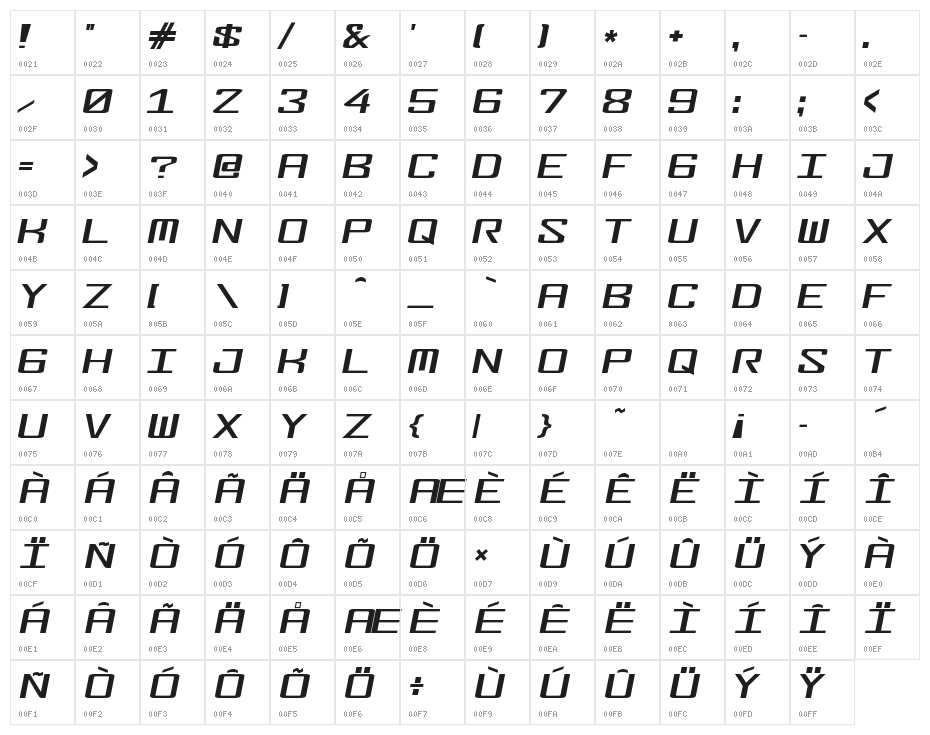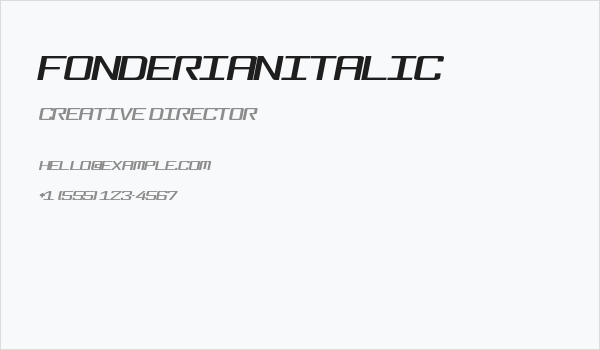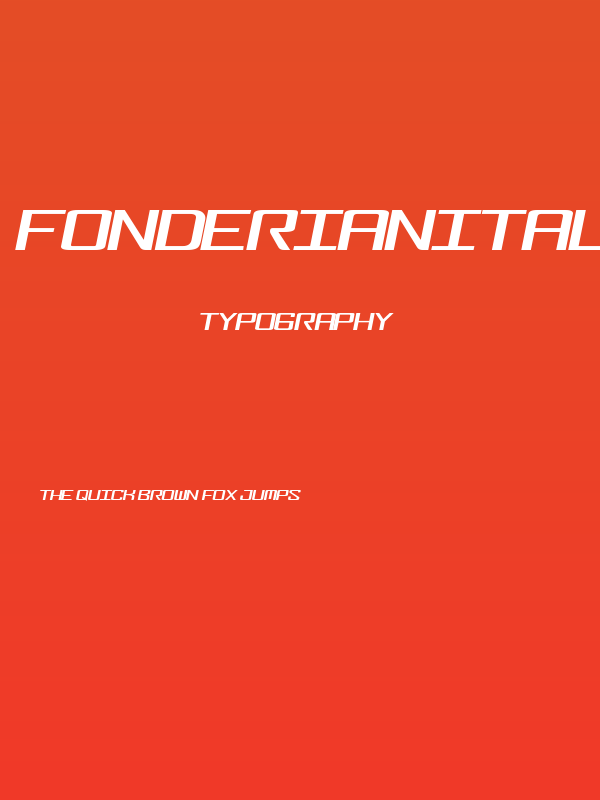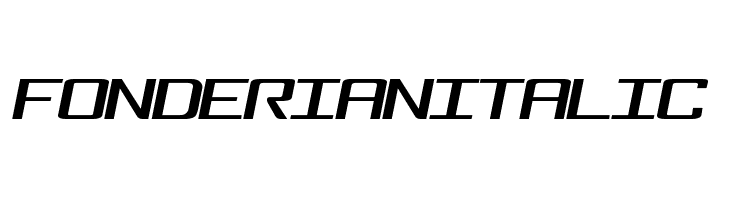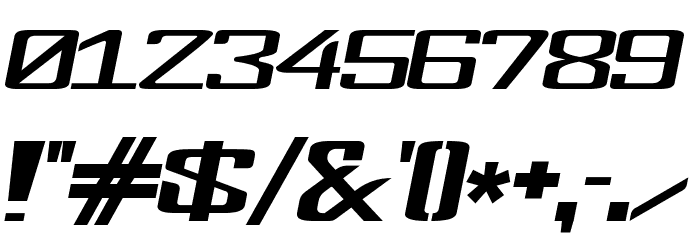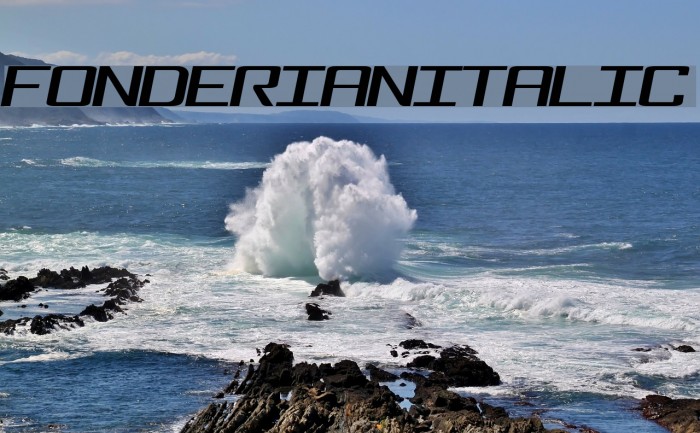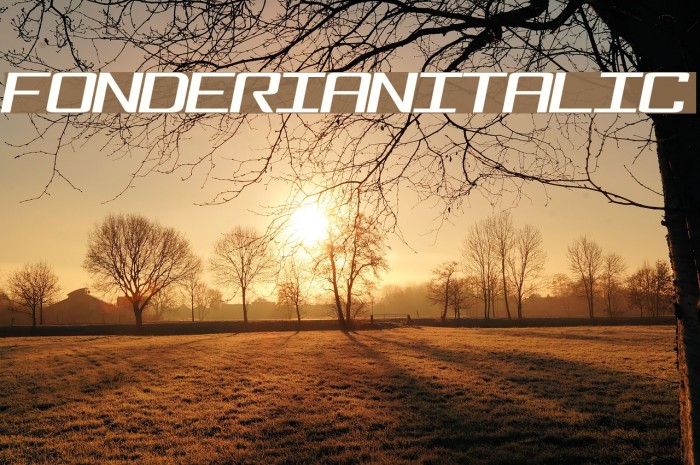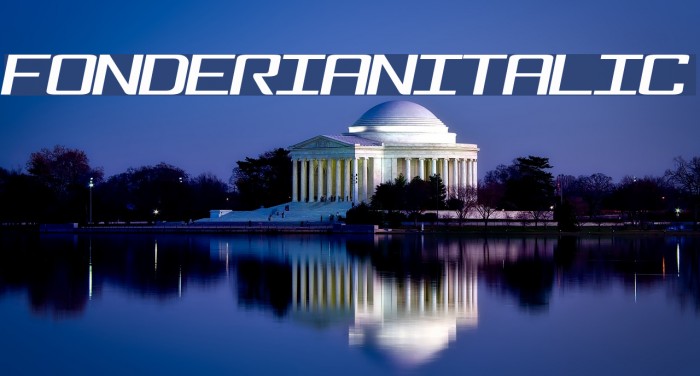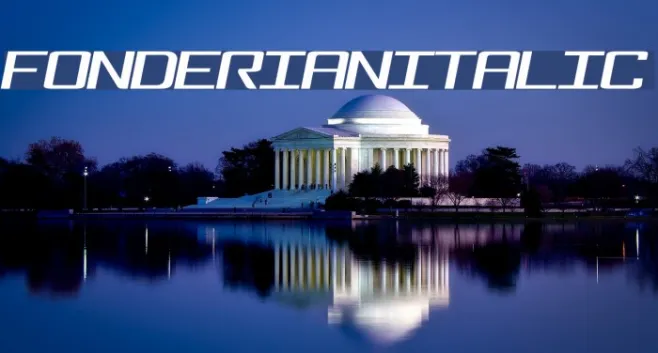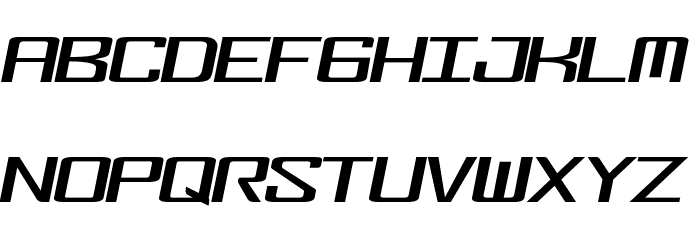
FonderianItalic Font
FonderianItalic Description
This font features a modern, italicized design with a sleek and angular aesthetic. The characters are slightly slanted, giving a sense of motion and dynamism. The uppercase and lowercase letters maintain a consistent style, with sharp edges and a futuristic feel. Numbers and special characters are designed to match the overall theme, providing a cohesive look. The font's unique style makes it suitable for projects that require a contemporary and edgy appearance.
| Proposed Projects | Ideal for technology branding, sports team logos, futuristic posters, and dynamic advertising campaigns. |